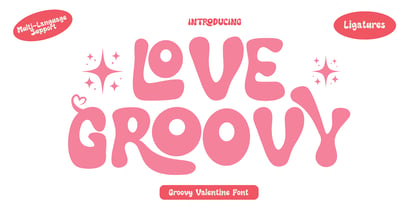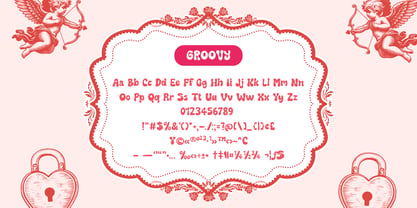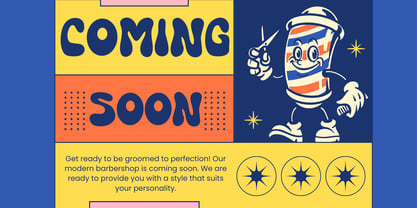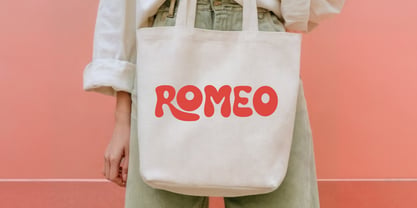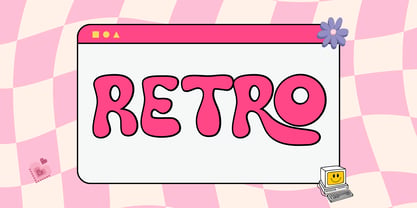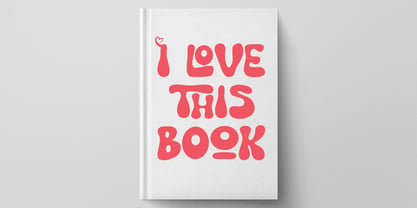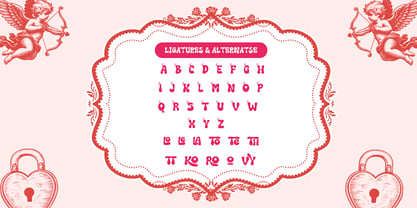
Love Groovy
by Brown Cupple Typeface
The Love Groovy Font Family was designed by Nattha​ Potchanad​ and published by Brown Cupple Typeface. Love Groovy contains 1 styles.
With its smooth curves, bold retro shapes, and warm romantic vibe, Love Groovy brings a joyful, handcrafted feeling to every layout. It works beautifully for both digital and print, standing out in headlines while staying friendly and readable in short texts. Whether you’re creating something cute, nostalgic, or modern-retro, this font helps your message feel heartfelt, stylish, and full of love.